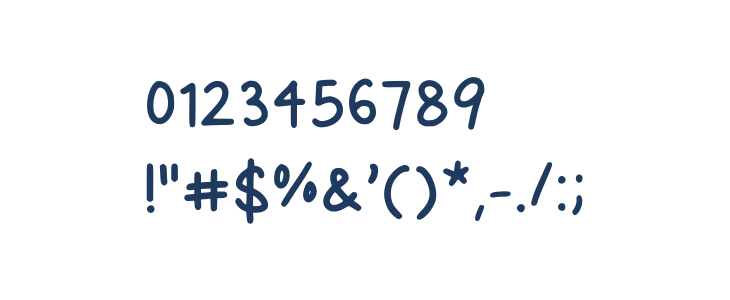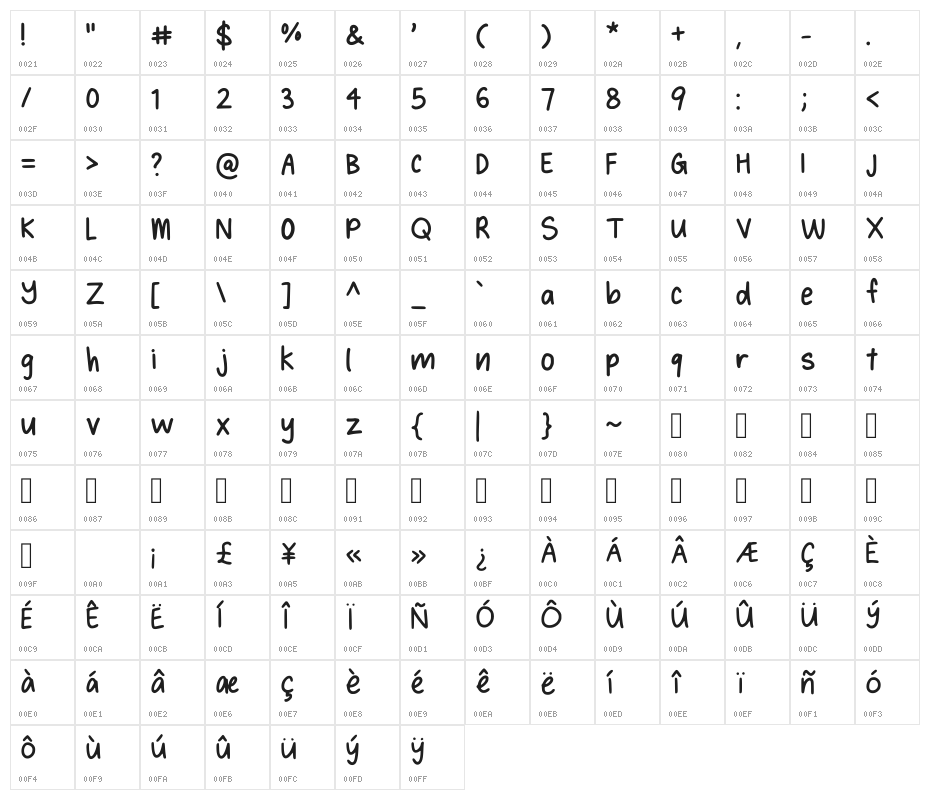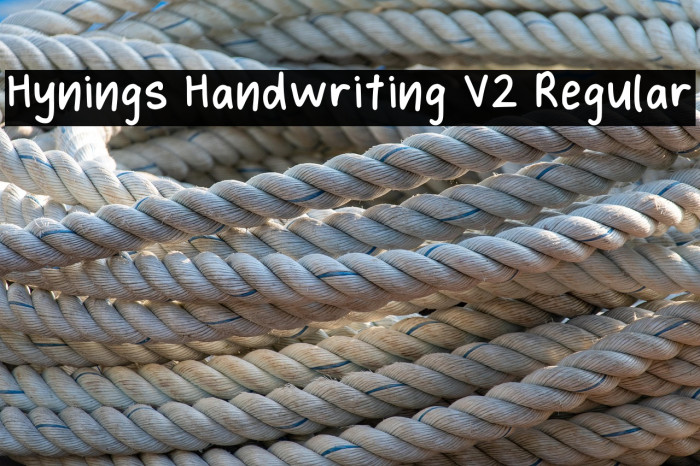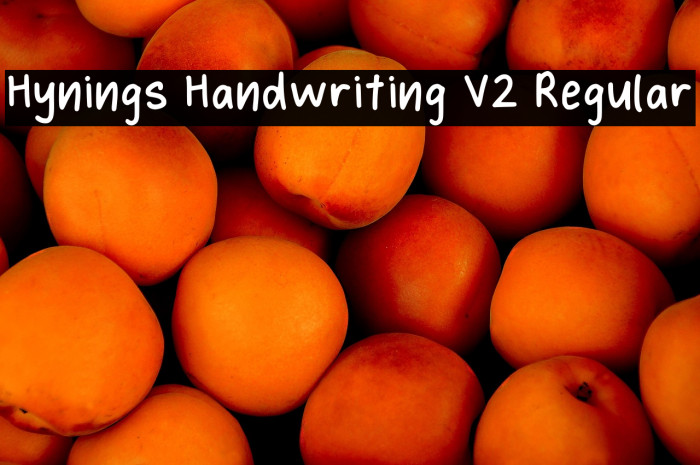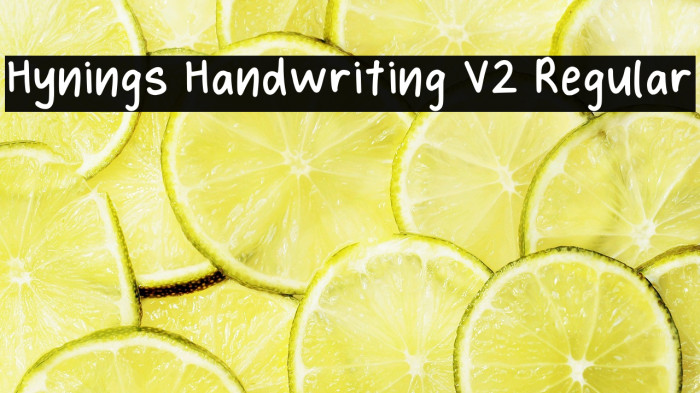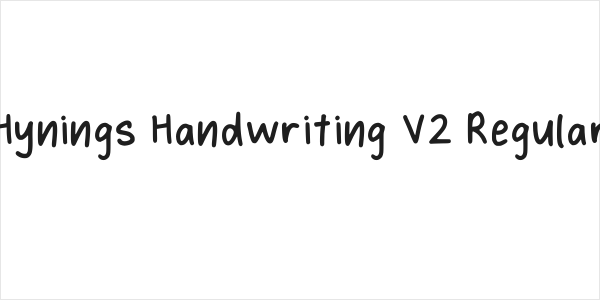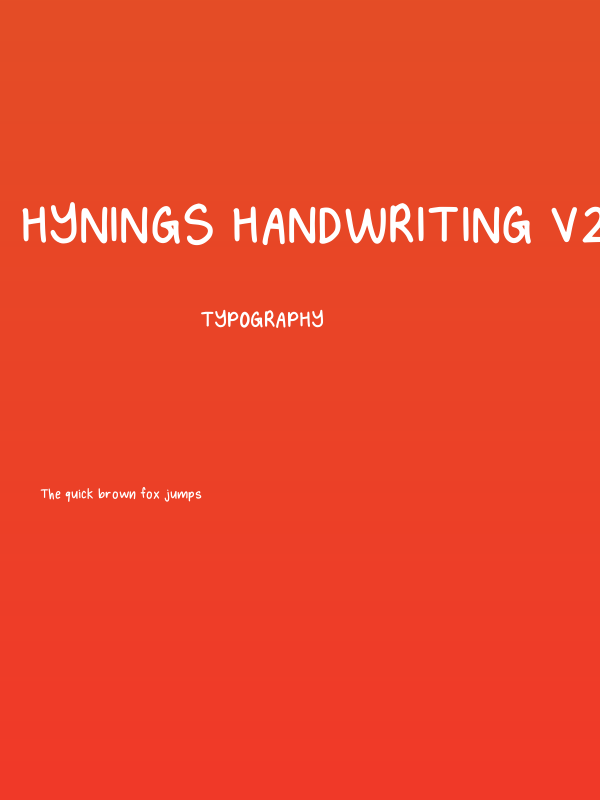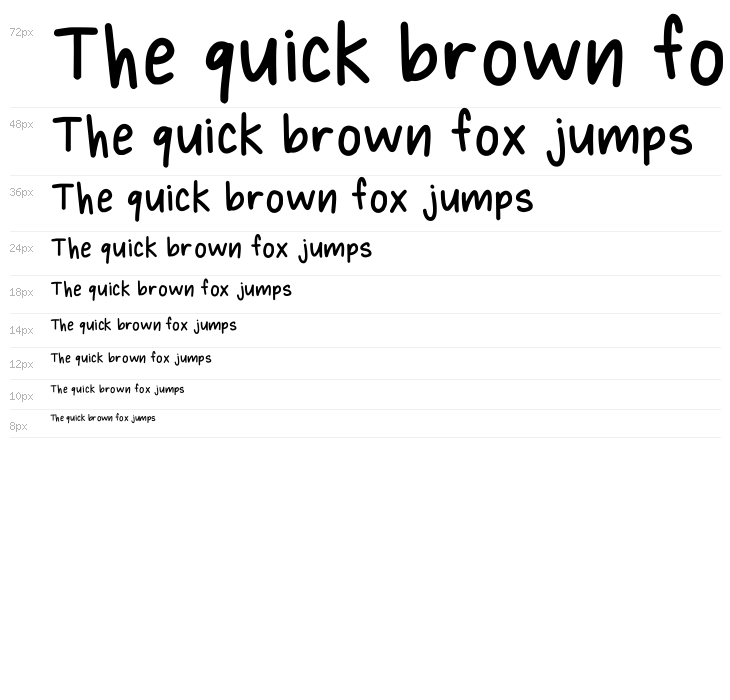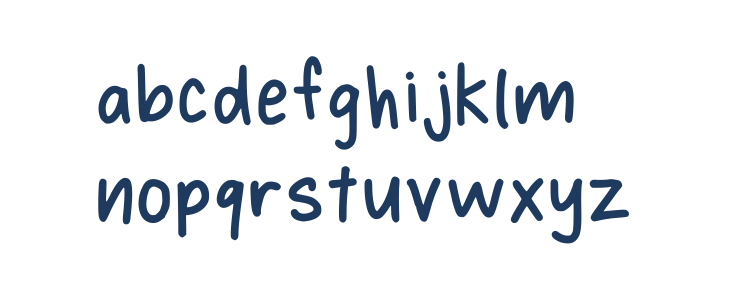
Hynings Handwriting V2 Regular Font
Hynings Handwriting V2 Regular Description
This font exudes a playful and casual handwritten style, characterized by its rounded and slightly irregular letterforms. The strokes are smooth and consistent, giving it a friendly and approachable appearance. Each character maintains a uniform thickness, contributing to its legibility and charm. The font's informal nature makes it ideal for projects that require a personal touch, such as greeting cards, invitations, or children's books. Its simplicity and warmth make it versatile for various creative applications.
| Proposed Projects | Ideal for greeting cards, invitations, children's books, and personal projects. |